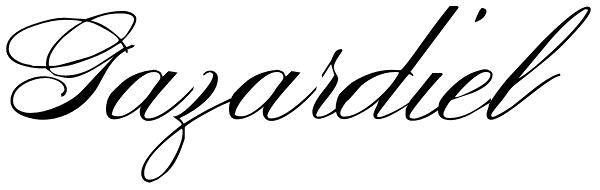
Gazardiel
Gazardiel is a decorative new script font with elaborate flourishes on the upper case characters, interlocking lower case and calligraphic-style weighting which creates a very attractive overall look. The upper case characters are quite complex, but...